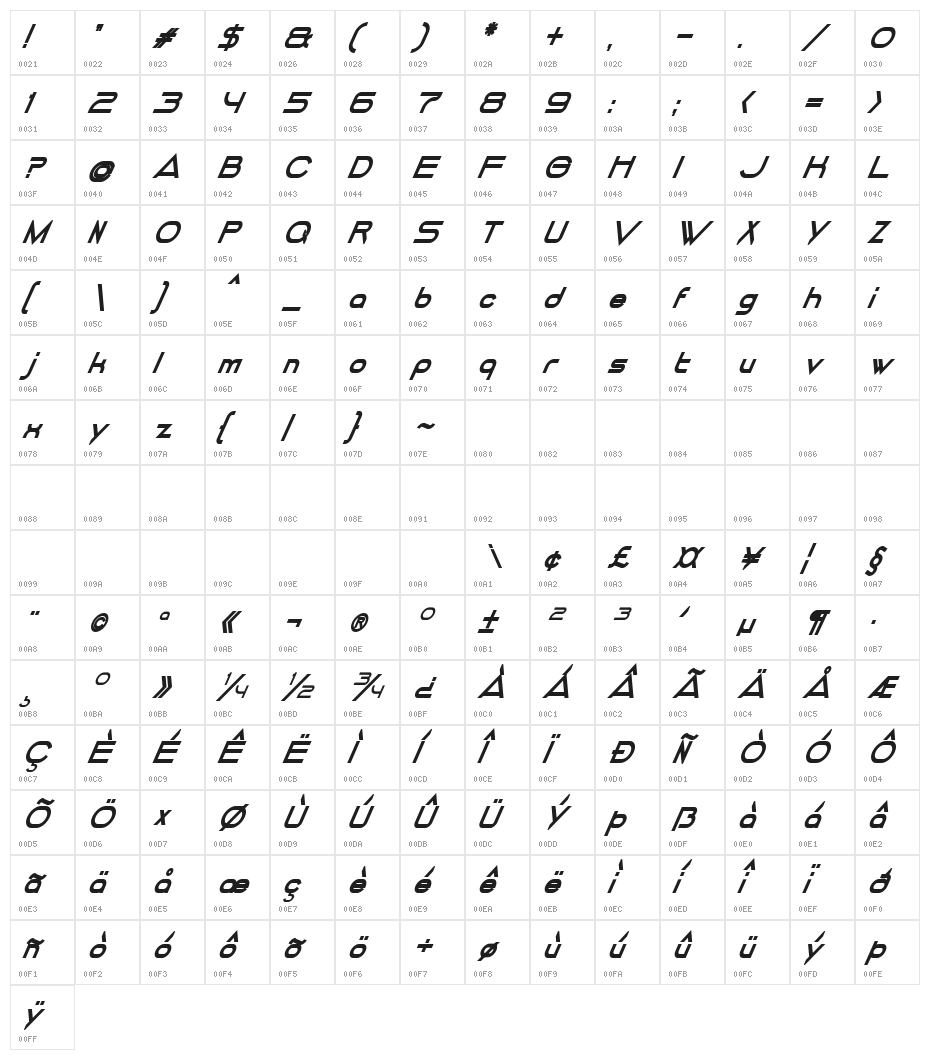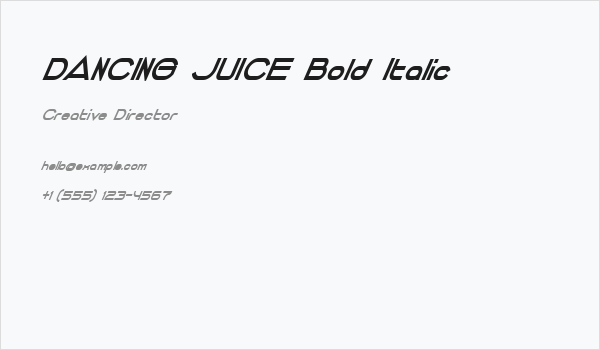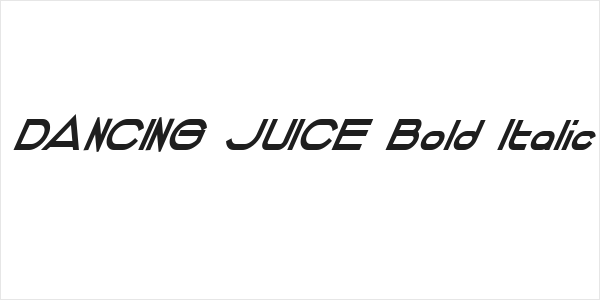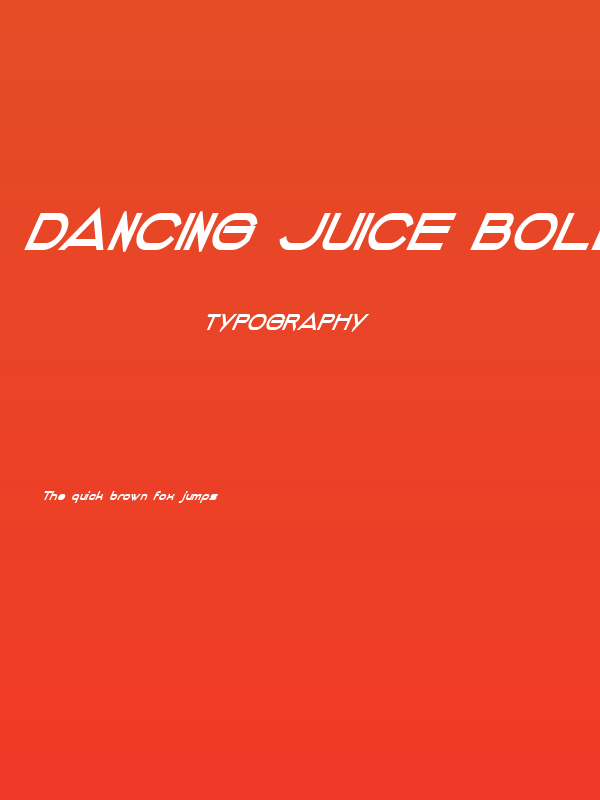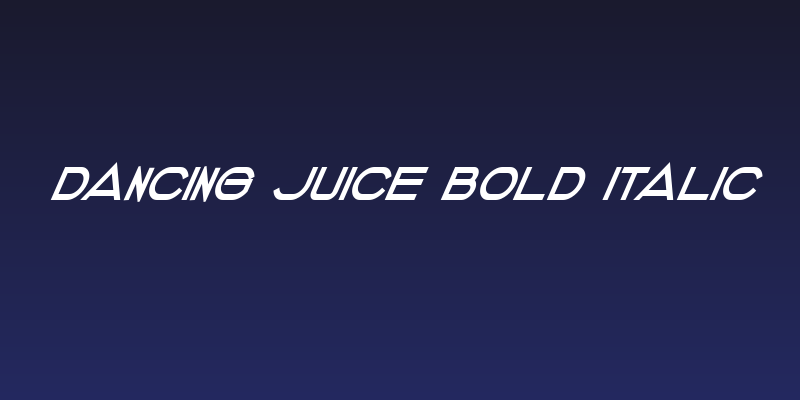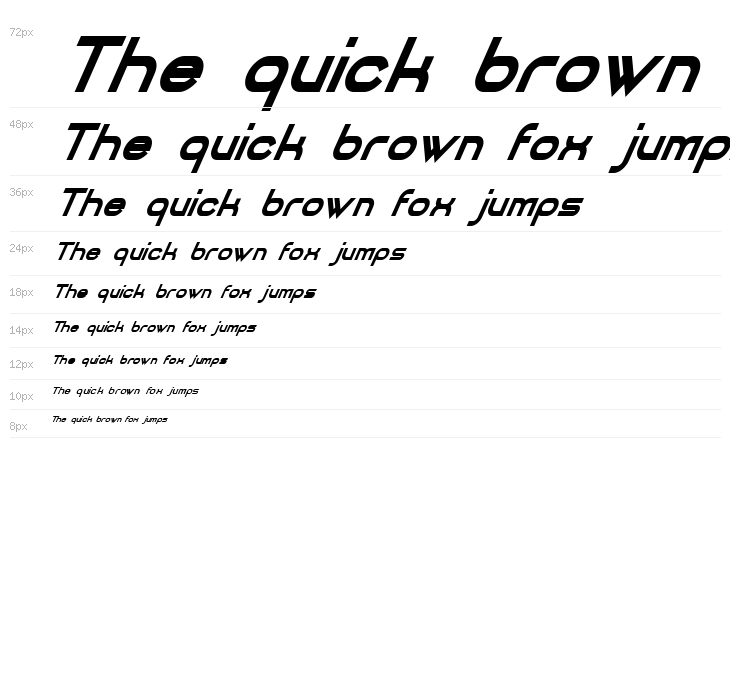
DANCING JUICE Bold Italic Font
DANCING JUICE Bold Italic Description
This font features a dynamic and energetic style with a bold and italicized appearance. The letters are slightly slanted, giving a sense of movement and fluidity. The strokes are thick and consistent, providing a strong visual impact. The characters have a modern and sleek design, with sharp angles and clean lines. The overall look is contemporary and stylish, making it suitable for projects that require a bold statement. The numbers and special characters maintain the same bold and italicized style, ensuring consistency across all elements.
| Proposed Projects | Ideal for branding, advertising, posters, and any project needing a bold, modern touch. |